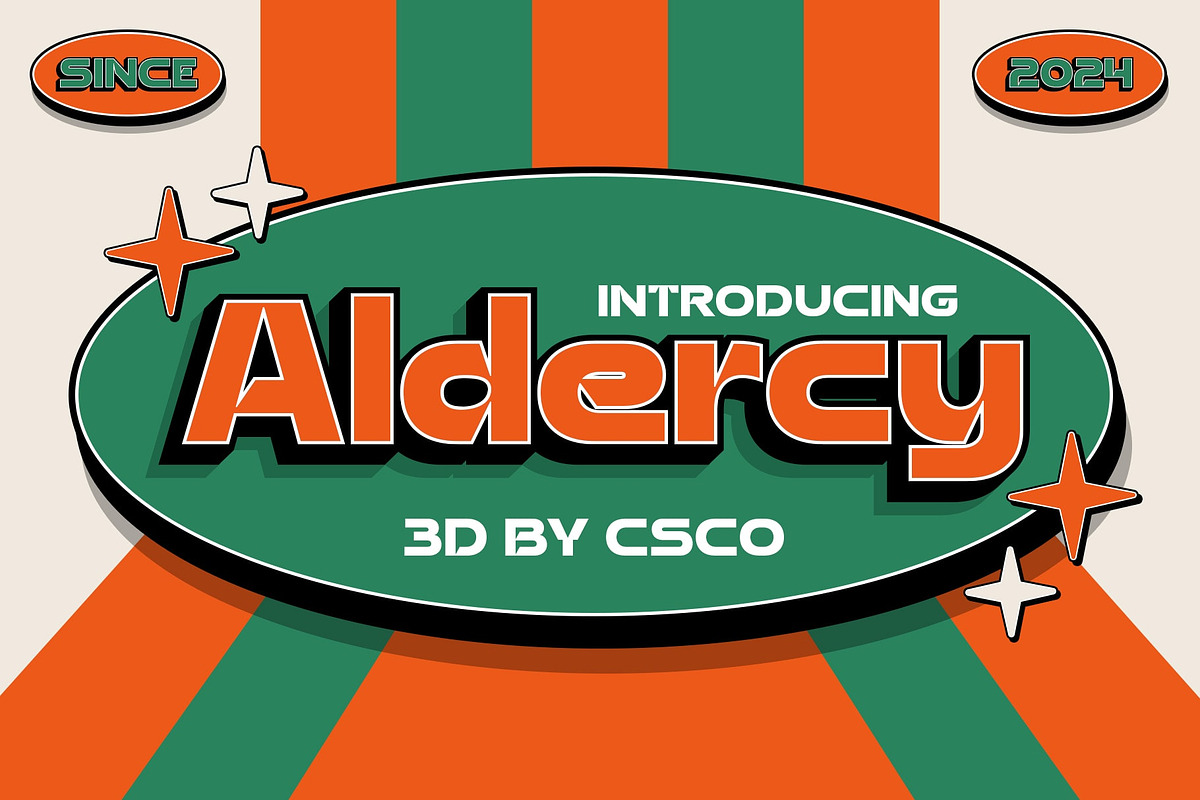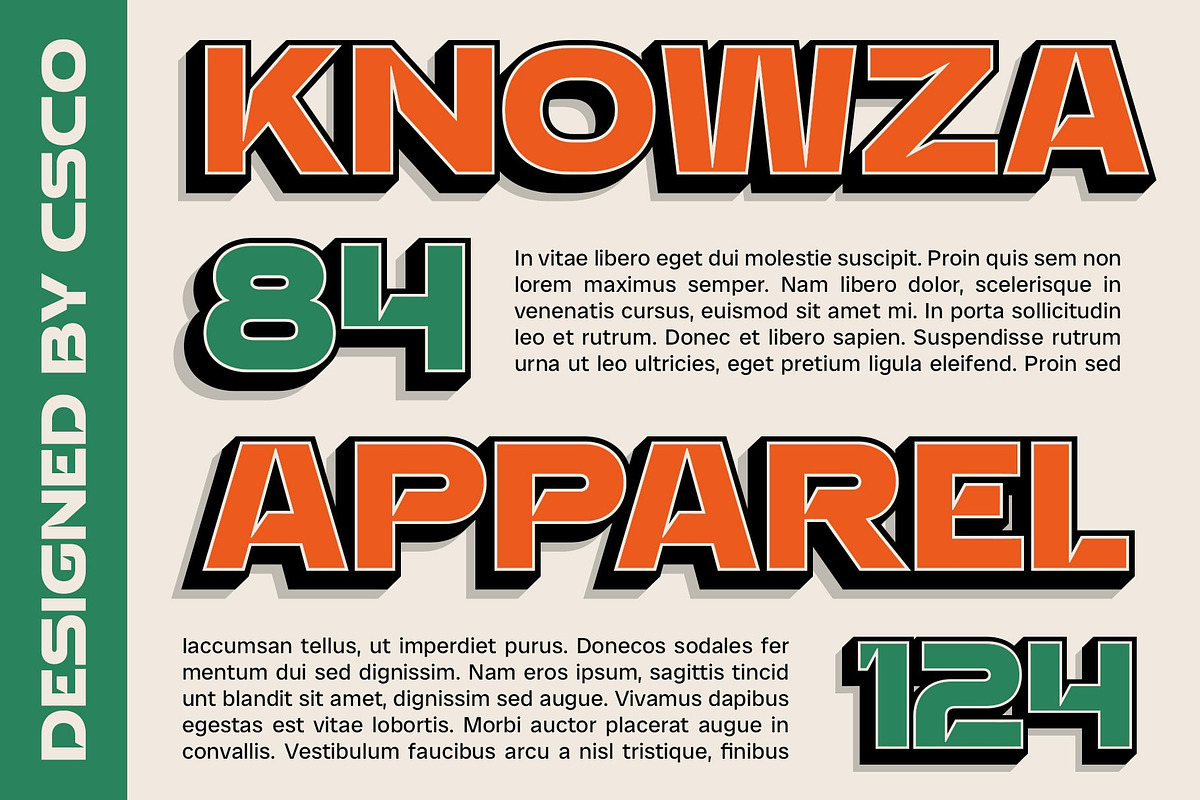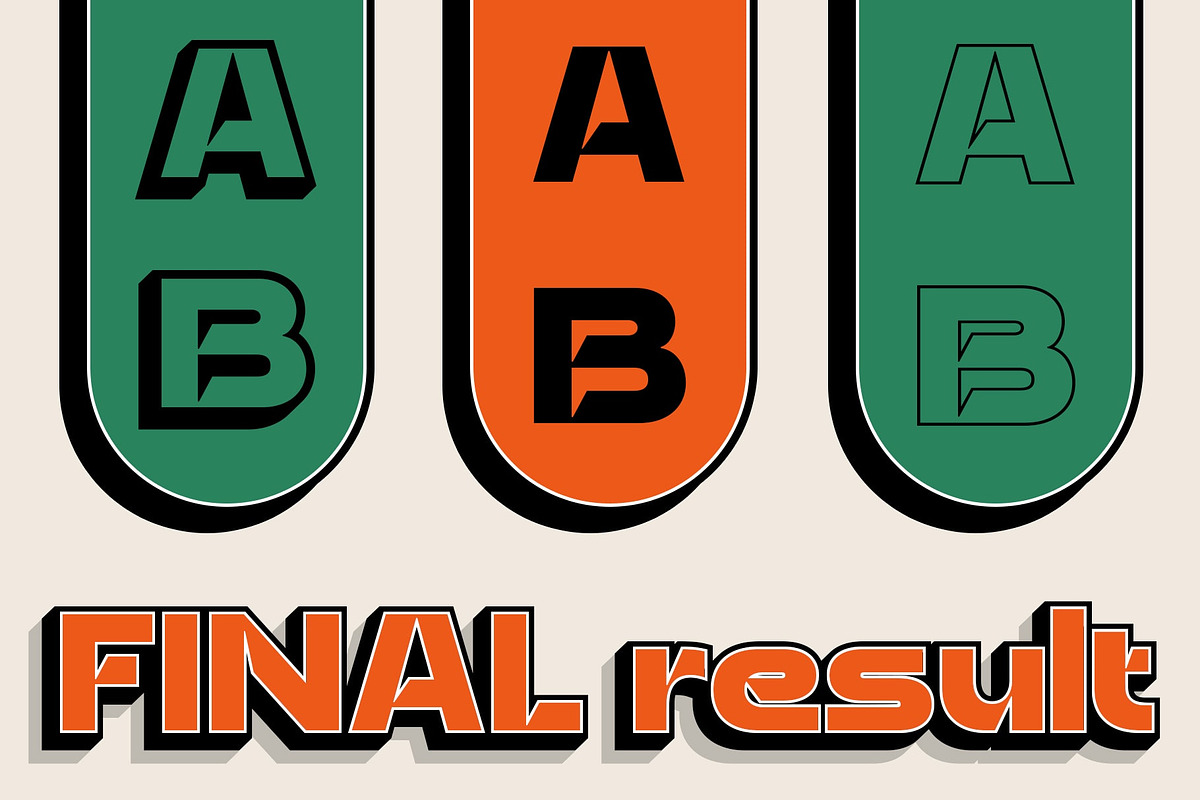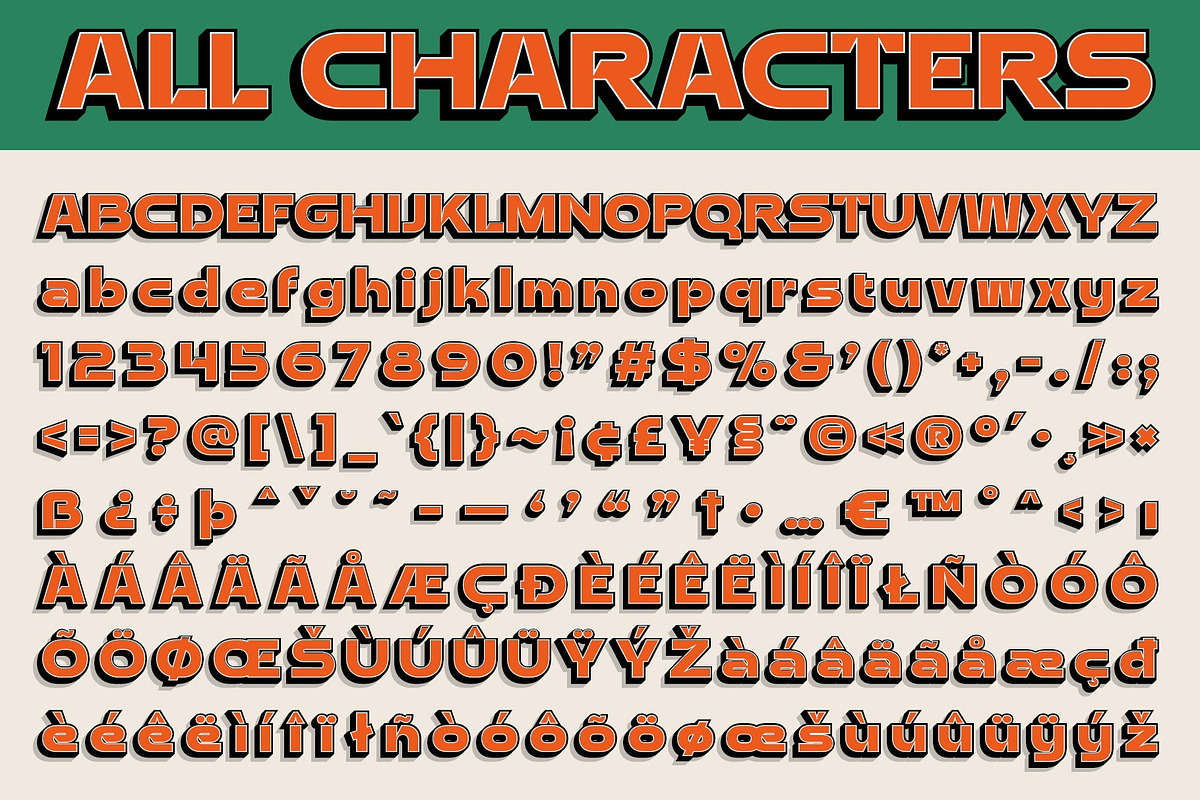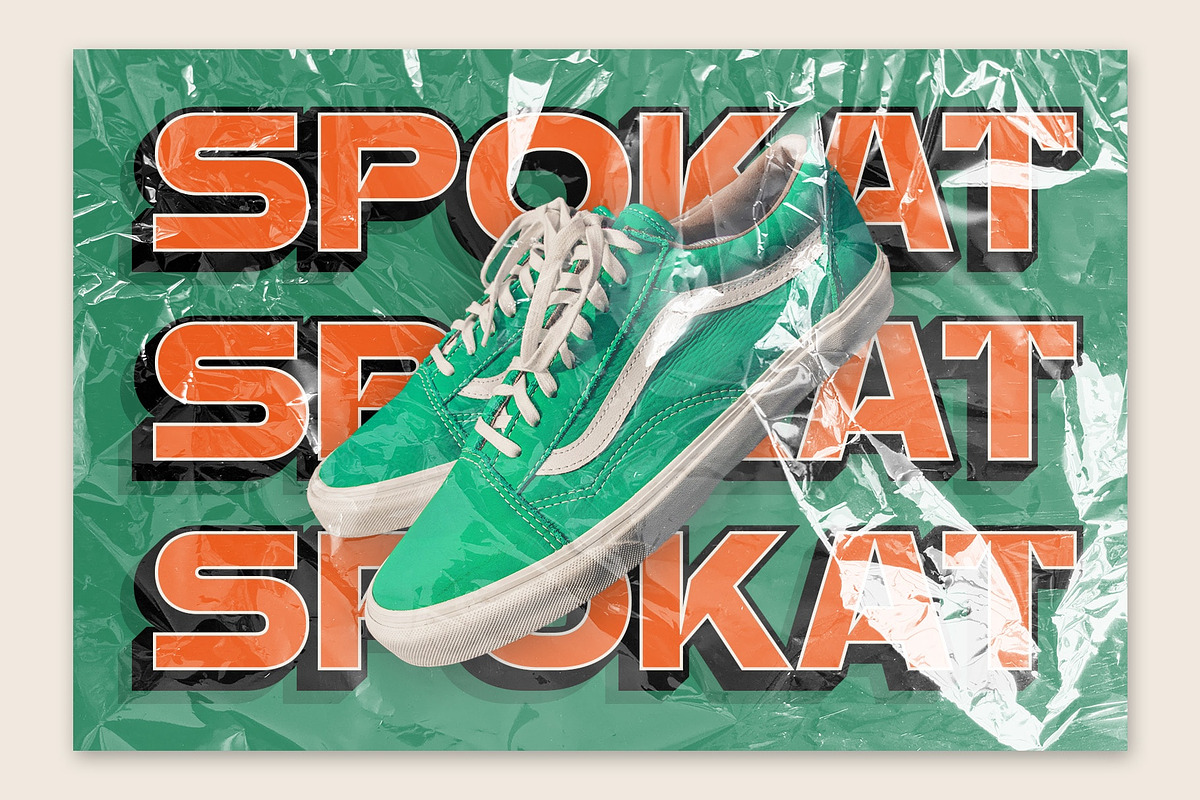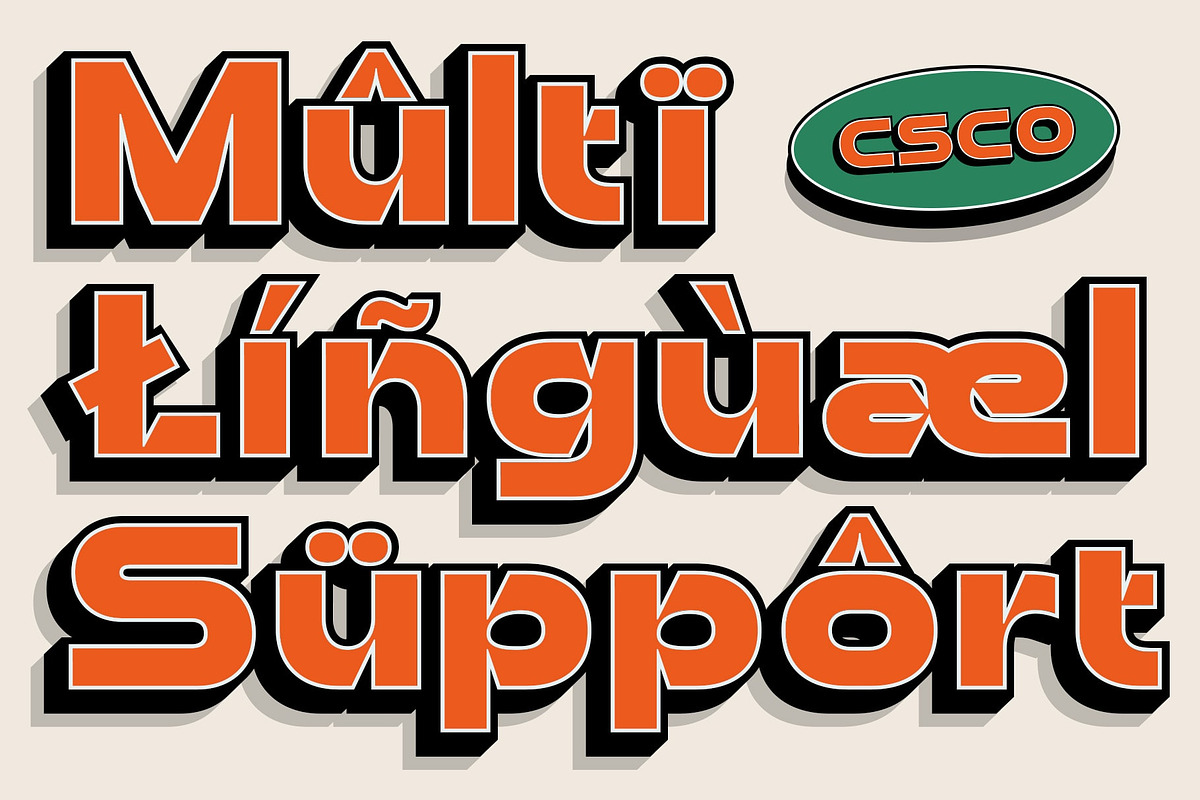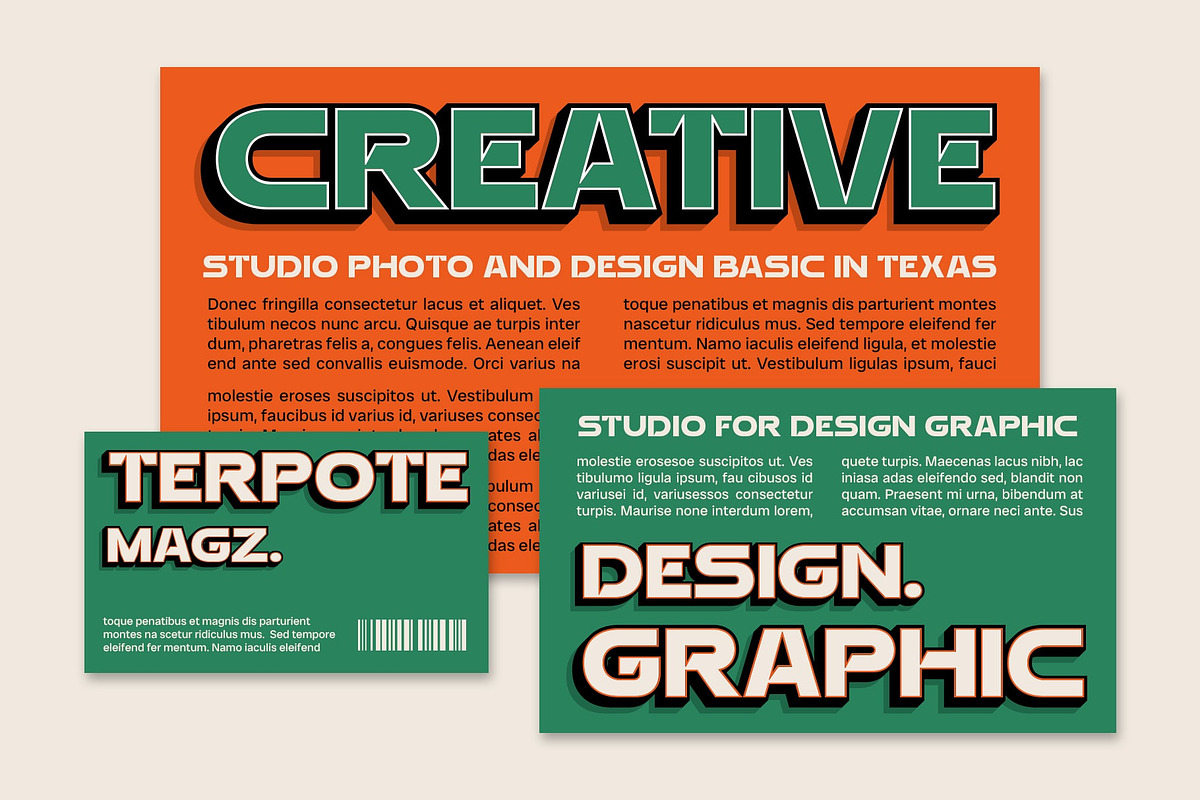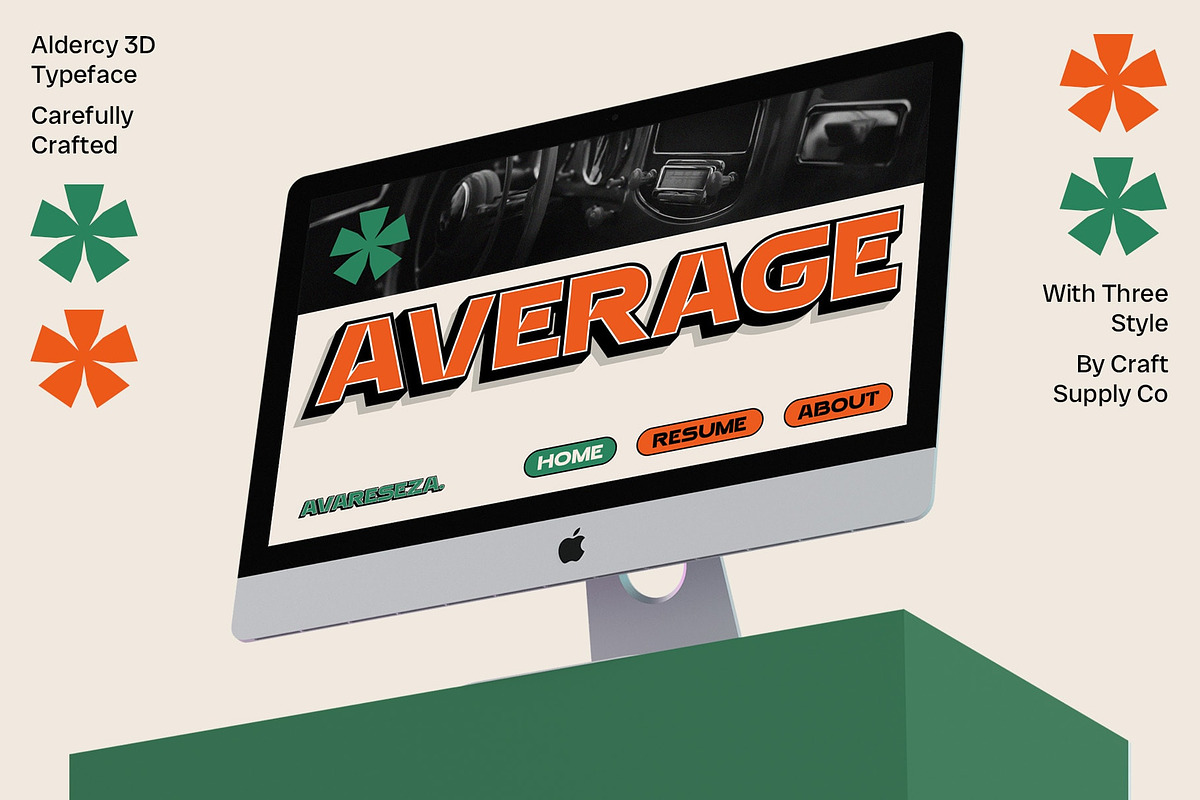
Aldercy 3D
Aldercy 3D: Bold and Striking Modern Sans-serif Font
Bold Shapes, Inktraps, and 3D Effect
Aldercy 3D is a modern sans-serif font that combines bold shapes, inktraps, and a 3D effect to create a strong and attractive appearance. Its design features bold letters that stand out, along with inktrap details that add dimension and character. The 3D effect adds visual depth to each character, making them more prominent and eye-catching.
Ideal for Striking Designs
Aldercy 3D is suitable for designs that aim to create a striking and bold look. Whether you’re designing a poster, a logo, or a website, Aldercy 3D can help your message stand out and grab attention.
Versatile and Unique
Despite its bold appearance, Aldercy 3D is versatile and can be used in a variety of design contexts. Its unique combination of bold shapes, inktraps, and 3D effect makes it a standout choice for designers looking to add a touch of modernity and creativity to their projects.
Elevate Your Designs with Aldercy 3D
Elevate your designs with Aldercy 3D, where bold shapes, inktraps, and a 3D effect come together to create a striking and attractive font. Its unique design features make it perfect for projects that demand attention and want to make a bold statement.
- Aldercy Regular
- Aldercy Outline
- Aldercy Extrude Right
- Aldercy Extrude Left